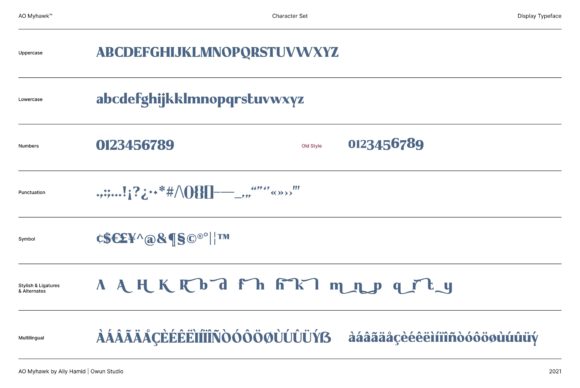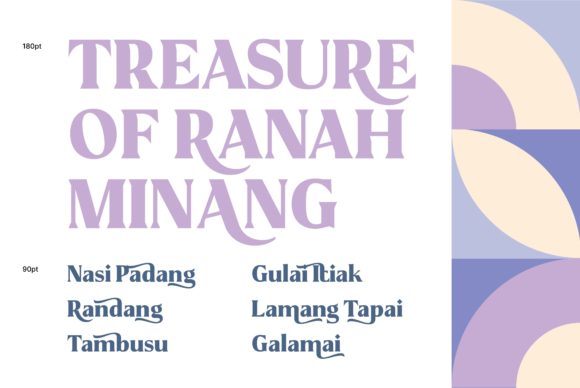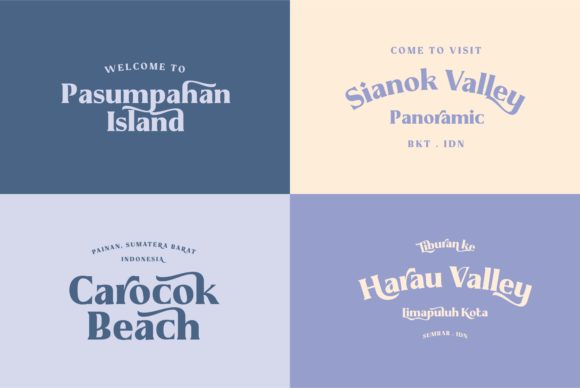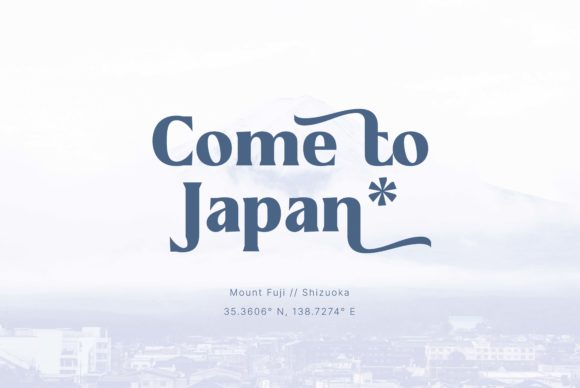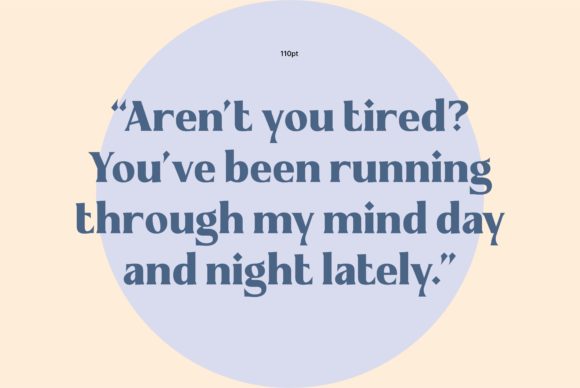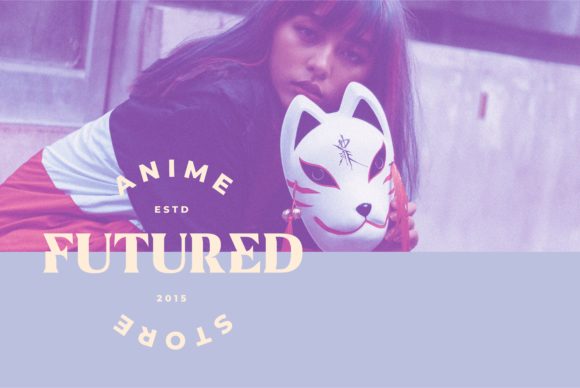
Introduction to AO Myhawk Font
Have you ever been working on a creative project, and the perfect font just slipped through your fingers? The struggle is real, but don’t worry, we’ve got you covered. As designers, we’re always on the lookout for unique and striking typefaces that can elevate our designs and leave a lasting impression. That’s exactly where the AO Myhawk Font comes in – a fearless, chic, and bold typeface that’s sure to make your project stand out.
With its gothic touch and edgy vibe, AO Myhawk Font is perfect for big headlines, adding a touch of sophistication and style to your designs. Whether you’re working on a graphic novel, a video game, or a creative campaign, this font is sure to be a game-changer.
Key Features of AO Myhawk Font
- High-Quality Design Resource: The AO Myhawk Font is a high-quality design resource ideal for creative projects, offering a unique and eye-catching look.
- Unique Characteristics: The AO Myhawk Font features a unique blend of modern and vintage elements, making it perfect for designers looking to add a touch of elegance to their creative projects.
- Perfect for Creative Projects: The AO Myhawk Font is an excellent choice for designers working on creative projects, such as logos, branding, and typography-based designs.
Honest Review: AO Myhawk Font
As a designer, I’m always on the lookout for high-quality design resources to elevate my creative projects. The AO Myhawk Font caught my attention, and I was excited to give it a try.
- High-quality design: The font is clean, modern, and visually appealing, making it perfect for a variety of creative projects.
While the AO Myhawk Font is a great addition to my design resource library, there are a few limitations to consider:
- Limited character set: The font only includes a limited character set, which may not be suitable for projects that require a wide range of characters.
- No bold or italic versions: I wish there were bold or italic versions of the font available to add more depth and variety to my designs.
Overall, I’m impressed with the AO Myhawk Font and its potential to enhance my creative projects. While it may have some limitations, I believe it’s a valuable design resource worth exploring.
The AO Myhawk Font is a versatile design resource suitable for various creative projects. Use it for logos, posters, and social media graphics. Its high-quality design and transparent background make it an ideal choice for designers.
To get the most out of the AO Myhawk Font, use it for headings and titles. Its bold and modern design makes it perfect for grabbing attention. Common use cases include branding, marketing materials, and social media graphics.